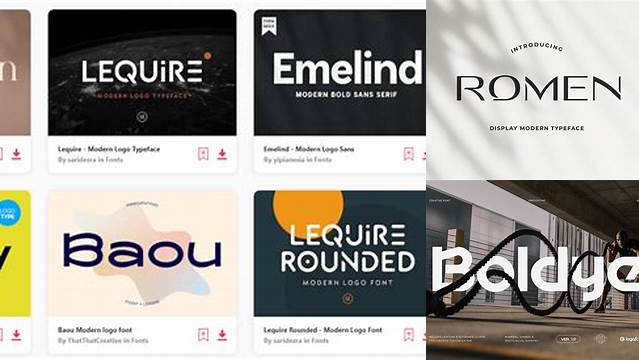
Modern Logo Fonts: Generate The Perfect Look
Choosing the right font for your logo is super important, guys! It's like picking the perfect outfit for your brand. You want something that looks good and represents what you're all about. With a modern logo fonts generator, you can find the perfect typeface to make your brand stand out. Let's dive into how to nail this!
1. Understanding Modern Font Styles for Logos
When we talk about modern logo fonts, we're looking at typefaces that feel fresh, contemporary, and relevant. Think clean lines, geometric shapes, and a minimalist vibe. Modern fonts often ditch the serifs (those little feet at the end of letters) for a cleaner, more streamlined look. But hey, that doesn't mean serif fonts are totally out! Some modern serif fonts can bring a touch of elegance and sophistication, especially when used creatively. The key is to find a balance that aligns with your brand's personality.
Consider the overall aesthetic you're aiming for. Are you going for a techy, futuristic feel? A clean and professional look? Or something a bit more artistic and unconventional? Your font choice should reflect that. Think about brands like Google or Spotify – their logos use simple, sans-serif fonts that convey a sense of innovation and accessibility. On the other hand, a brand like Tiffany & Co. uses a classic serif font that exudes luxury and timelessness. It's all about finding what works for your unique brand identity.
Experiment with different font styles. Try pairing a bold, modern sans-serif for your main logo with a subtle, elegant serif for your tagline. Or play around with different weights and sizes to create visual interest. Just make sure everything is legible and works well together. Remember, your logo is often the first thing people see, so you want to make a great impression.
2. The Importance of Font Choice in Branding
The font you choose for your logo is more than just a pretty typeface; it's a crucial element of your brand identity. It communicates your brand's personality, values, and overall message. A well-chosen font can evoke emotions, create associations, and help you stand out from the competition. Think of it as the voice of your brand – it needs to be clear, consistent, and memorable.
If you're a playful, energetic brand, a fun and quirky font might be a great fit. On the other hand, if you're a serious, professional brand, a clean and sophisticated font would be more appropriate. Imagine a law firm using a Comic Sans font – it just wouldn't work, right? The font needs to align with your target audience and the overall tone you want to convey. It's about creating a cohesive and authentic brand experience.
Your logo font also needs to be versatile and adaptable. It should look good on everything from your website and social media profiles to your business cards and packaging. Consider how the font will look in different sizes and formats. Will it still be legible when it's scaled down for a favicon? Will it look good in both print and digital formats? These are all important factors to consider when making your font choice. Don't underestimate the power of a great font – it can make or break your brand.
Paid fonts, on the other hand, typically offer more features and flexibility. They often come with extended licensing options, allowing you to use them in a wider range of projects. They may also include additional weights, styles, and glyphs, giving you more control over your typography. Plus, paid fonts are often designed by experienced type designers who put a lot of time and effort into creating high-quality, visually appealing typefaces. Think of it as an investment in your brand's visual identity. If you're serious about creating a professional and memorable logo, a paid font might be the way to go.
Before you commit to a font, whether it's free or paid, make sure to test it out thoroughly. Try it in different sizes, weights, and colors. See how it looks with your brand name and tagline. Get feedback from others to see what they think. The goal is to find a font that not only looks good but also effectively communicates your brand's message. Choosing a font is a big decision, so take your time and do your research.
4. Using a Modern Logo Fonts Generator
Okay, so you're ready to find that perfect font! A modern logo fonts generator can be a super helpful tool. These generators typically allow you to enter your brand name and then preview it in a variety of different fonts. Some generators even let you customize the fonts by adjusting the size, color, and spacing.
There are tons of modern logo fonts generators available online. Some popular options include BrandCrowd, Canva, and Looka. These tools often offer a wide selection of fonts, ranging from classic to modern, and they make it easy to experiment with different combinations. Just remember that the quality of the fonts can vary, so it's important to be selective. Look for fonts that are well-designed, legible, and appropriate for your brand.
When using a modern logo fonts generator, it's a good idea to start by narrowing down your options based on your brand's personality and target audience. Are you looking for a font that's clean and modern, or something a bit more playful and creative? Once you have a few fonts in mind, try them out in different contexts. See how they look on your website, social media profiles, and marketing materials. Get feedback from others to see what they think. The goal is to find a font that not only looks good but also effectively communicates your brand's message. Don't settle for the first font you see – take your time and explore all of your options.
5. Font Pairing Tips for Modern Logos
Font pairing is the art of combining two or more fonts in a visually appealing and harmonious way. When done well, font pairing can add depth, interest, and personality to your logo. But when done poorly, it can look cluttered, confusing, and unprofessional. So how do you create a great font pairing for your modern logo?
One of the easiest ways to create a successful font pairing is to choose fonts that are contrasting but complementary. For example, you might pair a bold, modern sans-serif font with a delicate, elegant serif font. The contrast between the two fonts will create visual interest, while the complementary nature of the fonts will ensure that they work well together. Another approach is to choose fonts that are from the same font family but have different weights or styles. This can create a subtle but effective contrast.
When pairing fonts, it's important to consider the overall hierarchy of your logo. The main font should be the most prominent, while the secondary font should be used for supporting text, such as your tagline or website URL. Make sure the fonts are legible and easy to read, even at small sizes. Avoid using too many different fonts in your logo, as this can make it look cluttered and confusing. A good rule of thumb is to stick to two or three fonts at most. Experiment with different combinations and get feedback from others to see what they think. The goal is to create a font pairing that is both visually appealing and effectively communicates your brand's message.
6. Trends in Modern Logo Typography
Like any design trend, logo typography is constantly evolving. What's considered modern logo typography today might be outdated tomorrow. So it's important to stay up-to-date on the latest trends and adapt your logo accordingly. Some of the current trends in logo typography include:
- Geometric Fonts: Geometric fonts are characterized by their clean lines, simple shapes, and minimalist aesthetic. They're a popular choice for modern logos because they convey a sense of clarity, precision, and sophistication.
- Bold Fonts: Bold fonts are used to create a strong visual impact and draw attention to the logo. They're often paired with lighter, more delicate fonts to create contrast and balance.
- Handwritten Fonts: Handwritten fonts add a personal and authentic touch to logos. They're often used for brands that want to convey a sense of warmth, creativity, and individuality.
- Variable Fonts: Variable fonts are a relatively new type of font that allows you to customize various aspects of the font, such as its weight, width, and slant. This gives you more control over your typography and allows you to create unique and distinctive logos.
Keep in mind that trends come and go, so it's important to choose fonts that are not only trendy but also timeless. A well-designed logo should be able to stand the test of time, even as design trends change.
7. How to Choose the Right Font Weight for Your Logo
Font weight refers to the thickness of the font's strokes. It can range from light to bold, with various weights in between. Choosing the right font weight for your logo is important because it can affect the overall readability, visual impact, and perceived personality of your brand. A lighter font weight can convey a sense of elegance, sophistication, and minimalism, while a heavier font weight can convey a sense of strength, power, and authority. It all depends on the message you want to communicate.
When choosing a font weight, it's important to consider the overall design of your logo. If your logo is simple and minimalist, a lighter font weight might be a good choice. On the other hand, if your logo is more complex and detailed, a heavier font weight might be necessary to ensure that the text is legible. You should also consider the size of your logo. If your logo is going to be used at small sizes, you'll need to choose a font weight that is easy to read. Experiment with different font weights and get feedback from others to see what they think. The goal is to find a font weight that is both visually appealing and effectively communicates your brand's message.
8. Kerning and Letter Spacing in Logo Design
Kerning and letter spacing are typographical adjustments that affect the space between letters. Kerning adjusts the space between specific pairs of letters, while letter spacing adjusts the space between all letters in a word or phrase. These adjustments can have a significant impact on the readability, visual appeal, and overall quality of your logo.
Proper kerning and letter spacing can make your logo look more polished, professional, and visually balanced. It can also improve readability, especially at small sizes. Poor kerning and letter spacing, on the other hand, can make your logo look awkward, unprofessional, and difficult to read.
When adjusting kerning and letter spacing, it's important to pay attention to the overall rhythm and flow of the text. The goal is to create a consistent and harmonious visual experience. Avoid creating gaps or overlaps between letters, and make sure that the spacing is even and consistent throughout the logo. If you're not sure how to adjust kerning and letter spacing, there are many online resources and tutorials that can help. You can also hire a professional designer to help you with this aspect of your logo design.
9. Color Considerations for Logo Fonts
The color of your logo font is just as important as the font itself. Color can evoke emotions, create associations, and help you stand out from the competition. When choosing a color for your logo font, it's important to consider your brand's personality, target audience, and the overall message you want to communicate. A bright, vibrant color can convey a sense of energy, excitement, and playfulness, while a muted, neutral color can convey a sense of sophistication, elegance, and professionalism. It all depends on the message you want to communicate.
It's also important to consider the contrast between the font color and the background color. You want to make sure that the text is easy to read, even at small sizes. A good rule of thumb is to choose colors that have a high degree of contrast. For example, you might pair a dark font color with a light background color, or vice versa. You should also consider the color palette of your overall brand. Your logo font color should complement the other colors in your brand palette and create a cohesive and harmonious visual experience.
10. Testing Your Logo Font for Readability
Before you finalize your logo font, it's important to test it for readability. Readability refers to how easy it is to read and understand the text. A font that is visually appealing but difficult to read is not a good choice for your logo. You want to make sure that your logo is easy to read, even at small sizes and in different contexts.
There are several ways to test your logo font for readability. You can print out your logo at different sizes and see how easy it is to read. You can also view your logo on different devices, such as computers, smartphones, and tablets. You should also get feedback from others to see what they think. Ask people if they can easily read and understand the text in your logo. If people are having trouble reading your logo, you may need to choose a different font or adjust the size, weight, or spacing of the text.
11. Modern Sans-Serif Fonts for a Clean Look
Sans-serif fonts are known for their clean, modern aesthetic. They lack the small decorative strokes (serifs) that are found on serif fonts. This makes them a popular choice for logos that want to convey a sense of simplicity, clarity, and innovation. Some popular modern sans-serif fonts for logos include:
- Helvetica: A classic and versatile sans-serif font that is widely used in logos and branding materials.
- Arial: A widely available sans-serif font that is similar to Helvetica but with some subtle differences.
- Futura: A geometric sans-serif font that is known for its clean lines and minimalist aesthetic.
- Open Sans: A humanist sans-serif font that is designed to be highly readable on screens.
When choosing a sans-serif font for your logo, it's important to consider your brand's personality and target audience. A sans-serif font can be a great choice if you want to convey a sense of modernity, professionalism, and accessibility.
12. Elegant Serif Fonts for a Sophisticated Brand
Serif fonts are characterized by the small decorative strokes (serifs) that are found at the end of the letterforms. Serif fonts are often associated with tradition, elegance, and sophistication. They can be a great choice for logos that want to convey a sense of history, authority, and trustworthiness.
Some popular elegant serif fonts for logos include:
- Times New Roman: A classic serif font that is widely used in print media.
- Garamond: A timeless serif font that is known for its elegance and readability.
- Bodoni: A high-contrast serif font that is often used in fashion and luxury branding.
- Playfair Display: A modern serif font that is designed for display use.
When choosing a serif font for your logo, it's important to consider your brand's personality and target audience. A serif font can be a great choice if you want to convey a sense of tradition, elegance, and trustworthiness.
13. Geometric Fonts and Their Impact on Logo Design
Geometric fonts are based on simple geometric shapes, such as circles, squares, and triangles. They are known for their clean lines, minimalist aesthetic, and sense of precision. Geometric fonts can be a great choice for logos that want to convey a sense of modernity, innovation, and sophistication.
Some popular geometric fonts for logo design include:
- Futura: A classic geometric font that is widely used in logos and branding materials.
- Gotham: A modern geometric font that is known for its clean lines and versatility.
- Montserrat: A popular geometric font that is available in a wide range of weights and styles.
- Raleway: A stylish geometric font that is often used in web design.
When choosing a geometric font for your logo, it's important to consider your brand's personality and target audience. A geometric font can be a great choice if you want to convey a sense of modernity, innovation, and sophistication.
14. Handwritten Fonts: Adding a Personal Touch
Handwritten fonts mimic the look of handwriting. They can add a personal, authentic, and unique touch to your logo. They're often used for brands that want to convey a sense of warmth, creativity, and individuality. However, handwritten fonts can be difficult to read, so it's important to choose a font that is legible and appropriate for your brand.
Some popular handwritten fonts for logos include:
- Brush Script: A classic handwritten font that is known for its flowing strokes and elegant style.
- Pacifico: A casual handwritten font that is perfect for logos that want to convey a sense of fun and relaxation.
- Lobster: A bold handwritten font that is often used in vintage-inspired logos.
- Amatic SC: A narrow handwritten font that is perfect for headlines and titles.
When choosing a handwritten font for your logo, it's important to consider your brand's personality and target audience. A handwritten font can be a great choice if you want to convey a sense of warmth, creativity, and individuality.
15. Vintage Fonts for a Retro Logo Feel
Vintage fonts evoke a sense of nostalgia and history. They can be a great choice for logos that want to convey a sense of tradition, craftsmanship, and authenticity. Vintage fonts often feature distressed textures, ornate details, and unique letterforms. They can add a touch of character and personality to your logo.
Some popular vintage fonts for logos include:
- Bebas Neue: A tall and narrow sans-serif font that is often used in vintage-inspired logos.
- League Gothic: A classic sans-serif font that is known for its bold and impactful style.
- Playfair Display: A modern serif font that is often used in vintage-inspired designs.
- Raleway: A versatile font that can be used to create both modern and vintage logos.
When choosing a vintage font for your logo, it's important to consider your brand's personality and target audience. A vintage font can be a great choice if you want to convey a sense of tradition, craftsmanship, and authenticity.
16. Display Fonts: Making a Statement
Display fonts are designed to be used at large sizes, such as in headlines and logos. They often feature unique and eye-catching designs that are intended to make a statement. Display fonts can be a great choice for logos that want to stand out from the crowd and grab attention.
Some popular display fonts for logos include:
- Bebas Neue: A tall and narrow sans-serif font that is often used in headlines and logos.
- Impact: A bold and impactful sans-serif font that is perfect for making a statement.
- Oswald: A condensed sans-serif font that is designed for digital displays.
- Roboto: A versatile sans-serif font that is available in a wide range of weights and styles.
When choosing a display font for your logo, it's important to consider your brand's personality and target audience. A display font can be a great choice if you want to make a statement and grab attention.
17. Monospace Fonts: A Unique and Technical Vibe
Monospace fonts have the same width for every character. This creates a uniform and technical look, often associated with coding and retro computers. Using a monospace font in your logo can give it a unique and distinctive vibe, making it stand out from the more common proportional fonts.
Good examples include:
- Courier New: A classic monospace font, widely recognized.
- Roboto Mono: A modern and readable monospace option.
- Source Code Pro: Designed specifically for coding, but visually appealing.
Monospace fonts can work well for tech companies, or brands aiming for a minimalist or retro aesthetic. However, readability can be a concern, so careful kerning and spacing adjustments are important.
18. Variable Fonts: Customization Options for Logos
Variable fonts allow you to customize font properties like weight, width, and slant along a continuous range. This provides incredible flexibility and control over your logo's typography. With variable fonts, you can fine-tune the font's appearance to perfectly match your brand's identity and create a truly unique look.
Benefits include:
- Precise Control: Adjust font properties with granular precision.
- Smaller File Sizes: Variable fonts can be more efficient than using multiple static font files.
- Unique Branding: Create a custom look that sets your logo apart.
Tools like FontLab and Glyphs allow you to create your own variable fonts, or you can find pre-made variable fonts from various foundries. This level of customization is a powerful tool for modern logo design.
19. Font Licensing: Understanding the Legalities
Before using any font in your logo, it's crucial to understand its licensing terms. Font licenses dictate how you can legally use the font, including whether you can use it for commercial purposes, embed it in digital products, or modify it. Ignoring font licensing can lead to legal issues and costly fines.
Key considerations include:
- Commercial Use: Ensure the license allows for commercial use in logos and branding materials.
- Embedding: Check if you can embed the font in websites or apps.
- Modifications: Understand if you're allowed to modify the font for your specific needs.
Always review the font's End User License Agreement (EULA) before using it. If you're unsure about the licensing terms, contact the font foundry or designer for clarification.
20. Creating a Font Mood Board for Logo Inspiration
A font mood board is a visual collection of fonts, typography styles, and related imagery that inspires your logo design. It helps you explore different typographic directions and narrow down your font choices. Creating a font mood board can save time and ensure a cohesive and visually appealing logo.
Steps to create a font mood board:
- Gather Inspiration: Collect examples of logos, websites, and branding materials that resonate with your brand's identity.
- Identify Font Styles: Note the font styles used in your inspiration, such as sans-serif, serif, or handwritten.
- Curate Fonts: Select a range of fonts that align with your brand's personality and the identified styles.
- Arrange Visually: Create a visually appealing layout of your font choices, along with your inspiration images.
Your font mood board will serve as a reference point throughout the logo design process, helping you stay true to your brand's vision.
21. Pairing Fonts with Icons and Symbols
In many logos, fonts are paired with icons or symbols to create a complete visual identity. The font and icon should complement each other, working together to convey your brand's message. Consider the following when pairing fonts with icons:
- Visual Balance: Ensure the font and icon have a balanced visual weight.
- Style Consistency: Choose a font that matches the style and aesthetic of the icon.
- Readability: The font should remain legible even when paired with the icon.
Experiment with different font and icon combinations to find the perfect pairing that represents your brand effectively.
22. Adapting Logo Fonts for Different Platforms
Your logo will be used across various platforms, including websites, social media, print materials, and merchandise. It's essential to ensure your logo font looks good and remains legible on all these platforms. Consider the following adaptations:
- Web Optimization: Use web-safe fonts or optimize custom fonts for web use.
- Print Resolution: Ensure the font is crisp and clear at high print resolutions.
- Mobile Responsiveness: Test the logo on mobile devices to ensure readability.
By adapting your logo font for different platforms, you'll maintain a consistent brand identity across all channels.
23. Competitor Analysis: Examining Font Choices
Analyzing your competitors' logos and font choices can provide valuable insights and inspiration. By examining what works and what doesn't for your competitors, you can make more informed decisions about your own logo design. Consider the following:
- Identify Trends: Note any common font styles or trends in your industry.
- Differentiate: Choose a font that sets your logo apart from the competition.
- Learn from Mistakes: Avoid font choices that appear dated or ineffective.
Competitor analysis is a valuable tool for ensuring your logo is both relevant and unique.
24. The Psychology of Fonts: What They Communicate
Fonts have a psychological impact, evoking different emotions and associations. Understanding the psychology of fonts can help you choose a font that aligns with your brand's personality and target audience.
- Serif Fonts: Often convey trustworthiness, tradition, and authority.
- Sans-Serif Fonts: Typically communicate modernity, clarity, and simplicity.
- Script Fonts: Can evoke creativity, elegance, and personalization.
Choose a font that resonates with the desired emotions and associations you want to create for your brand.
25. Font Sizes and Scaling: Best Practices for Logos
Font size and scaling are crucial considerations for logo design. Your logo should remain legible and visually appealing at various sizes, from small favicons to large banners. Follow these best practices:
- Test at Different Sizes: Ensure the font remains clear and readable at both small and large sizes.
- Consider Scaling: Choose a font that scales well without distortion or loss of detail.
- Adjust Kerning: Fine-tune the kerning (space between letters) at different sizes to maintain readability.
Proper font sizing and scaling will ensure your logo looks its best across all applications.
26. Dynamic Logos: Fonts That Adapt to Context
Dynamic logos are designed to adapt to different contexts and environments. This can involve changing the font, color, or layout of the logo based on the platform or application. Dynamic logos offer flexibility and can enhance the user experience.
Examples of dynamic logo adaptations:
- Color Changes: Adjusting the logo color to match the background.
- Font Variations: Using different font weights or styles for different platforms.
- Layout Adjustments: Rearranging the logo elements for optimal display.
Dynamic logos require careful planning and execution, but they can create a more engaging and memorable brand experience.
27. The Future of Logo Typography: Emerging Trends
The field of logo typography is constantly evolving. Emerging trends include:
- Variable Fonts: Gaining wider adoption for their flexibility and customization options.
- AI-Powered Font Generation: Tools that use artificial intelligence to create unique fonts.
- 3D Typography: Adding depth and dimension to logo fonts.
Staying informed about these emerging trends can help you create a logo that is both modern and innovative.
28. Font Foundries and Designers: Supporting Creativity
Font foundries and designers are the creative minds behind the fonts we use. Supporting their work is essential for fostering innovation and ensuring a diverse range of high-quality fonts. Consider purchasing fonts from reputable foundries and designers, and always respect their licensing terms.
Popular font foundries include:
- Adobe Fonts: Offers a vast library of fonts as part of the Adobe Creative Cloud subscription.
- MyFonts: A marketplace for purchasing fonts from various designers.
- FontShop: Another popular marketplace for fonts.
By supporting font foundries and designers, you're contributing to the future of typography.
29. Accessibility Considerations for Logo Fonts
Accessibility is an important consideration for logo design. Ensure your logo font is legible and readable for people with visual impairments or other disabilities. Follow these accessibility guidelines:
- Sufficient Contrast: Use high contrast between the font and background colors.
- Readable Font Sizes: Choose font sizes that are easy to read.
- Avoid Overly Stylized Fonts: Opt for fonts with clear and simple letterforms.
By prioritizing accessibility, you can ensure your logo is inclusive and reaches a wider audience.
30. Maintaining Brand Consistency with Your Logo Font
Once you've chosen a logo font, it's crucial to maintain consistency across all branding materials. This includes websites, social media, print collateral, and merchandise. Using the same font consistently helps reinforce your brand identity and creates a cohesive visual experience.
- Document Font Usage: Create a brand style guide that specifies the logo font and its usage guidelines.
- Train Employees: Ensure all employees are aware of the brand font and its proper application.
- Regular Audits: Conduct regular audits to ensure brand consistency across all channels.
By maintaining brand consistency with your logo font, you'll strengthen your brand identity and create a more memorable impression on your audience.